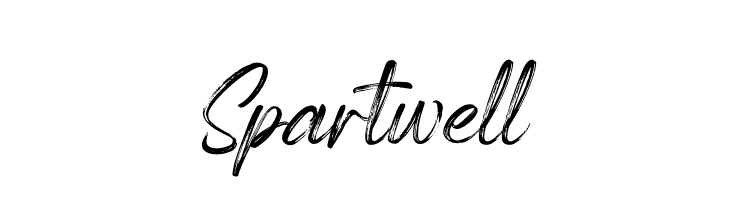
A tall, narrow, and modern font with elongated, thin characters.
A classic serif font with elegant strokes and balanced proportions.
A bold, fluid font with a psychedelic, retro style.
A tall, slender, and whimsical font with artistic flair.
A decorative handwritten font with leaf motifs integrated into each character.
A bold, expressive script font with a hand-drawn, lively style.
A playful, bold font with chunky, rounded characters and tight spacing.